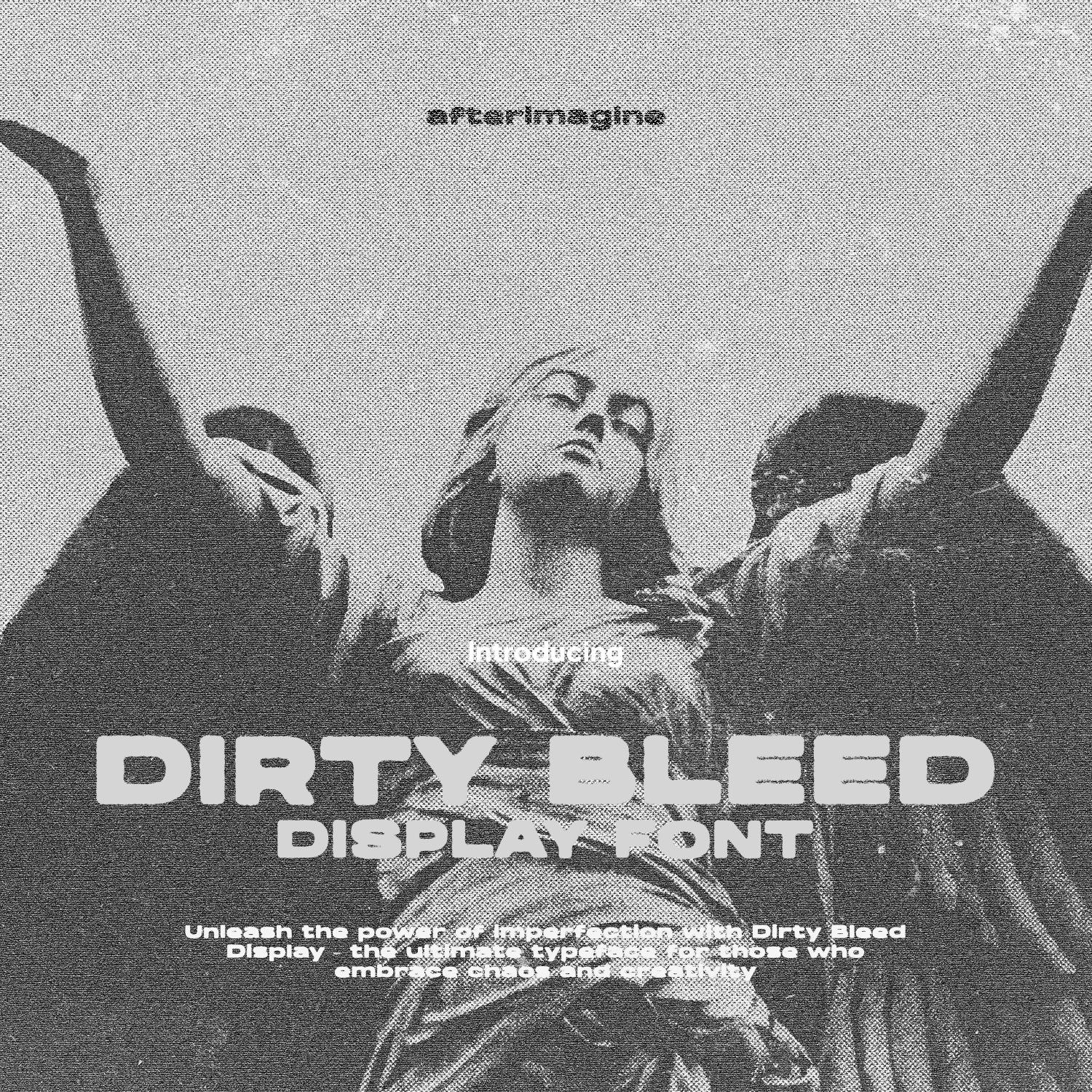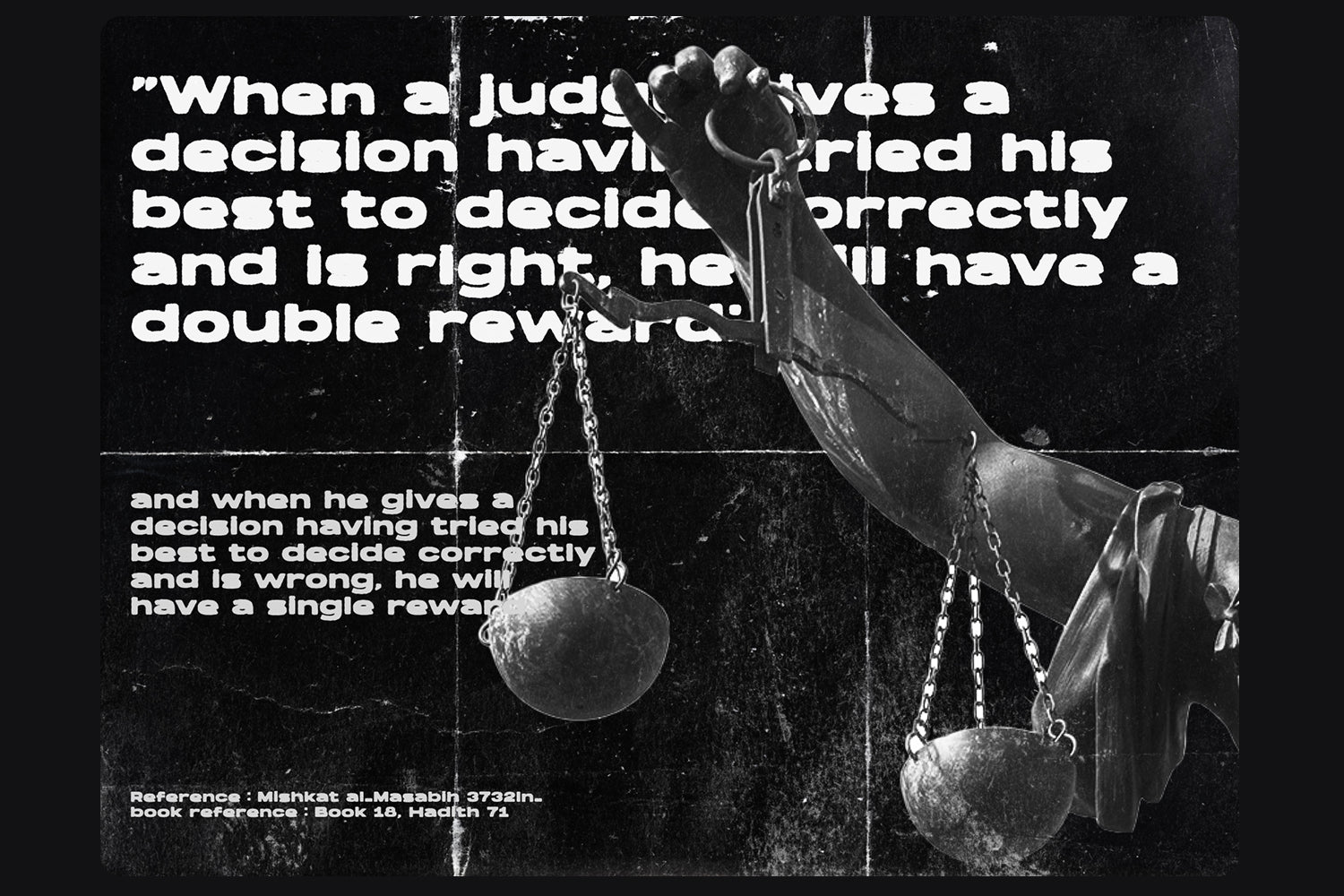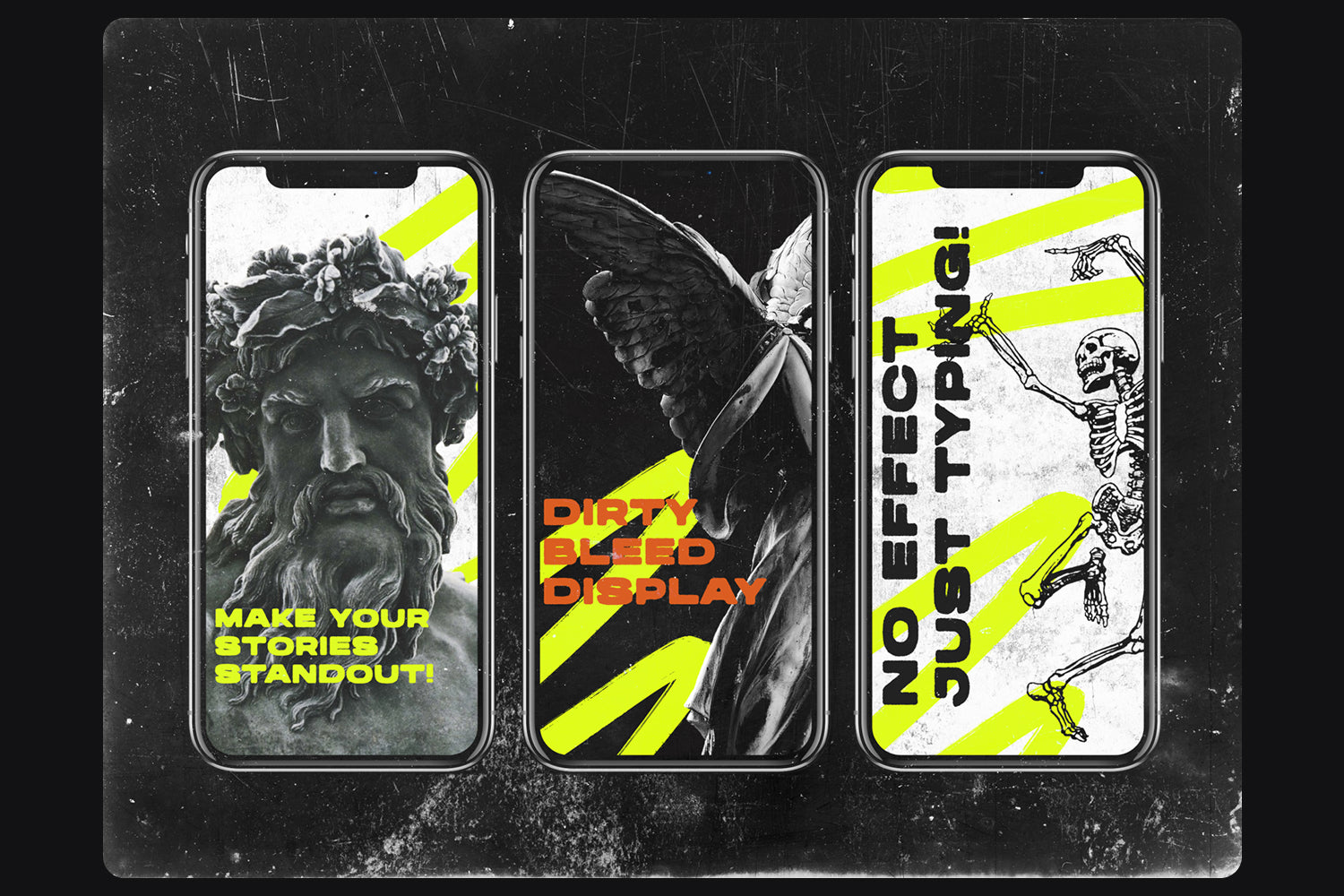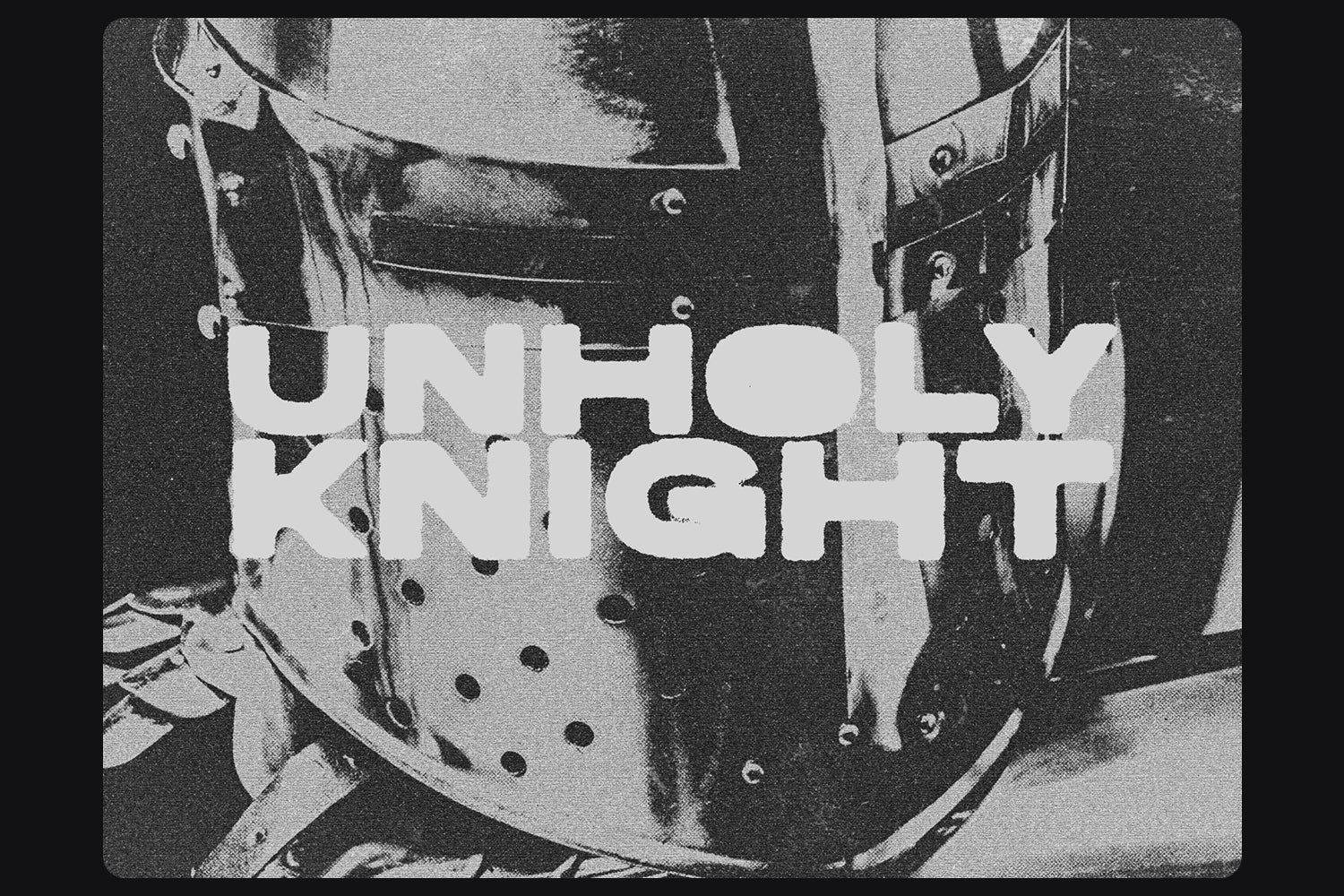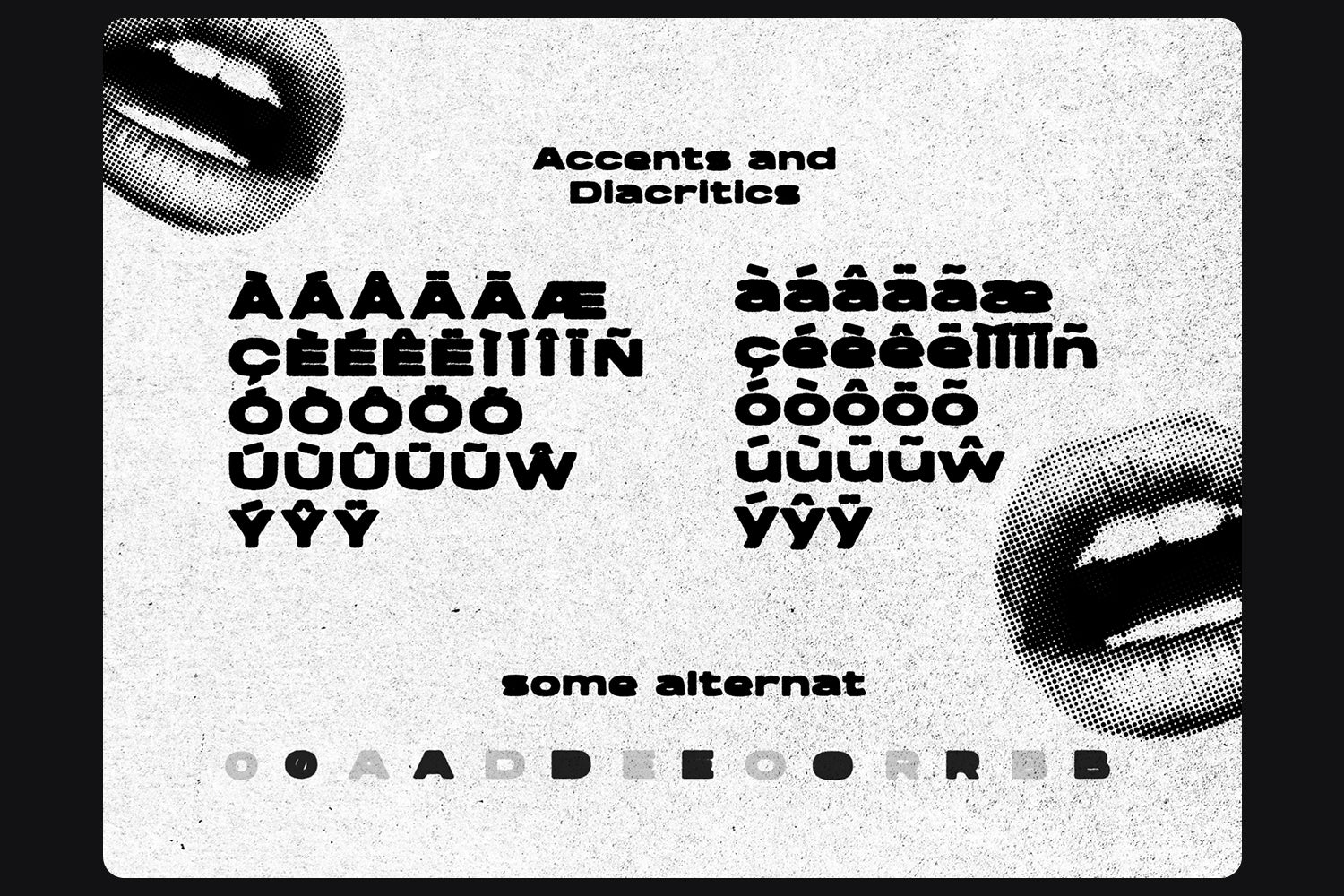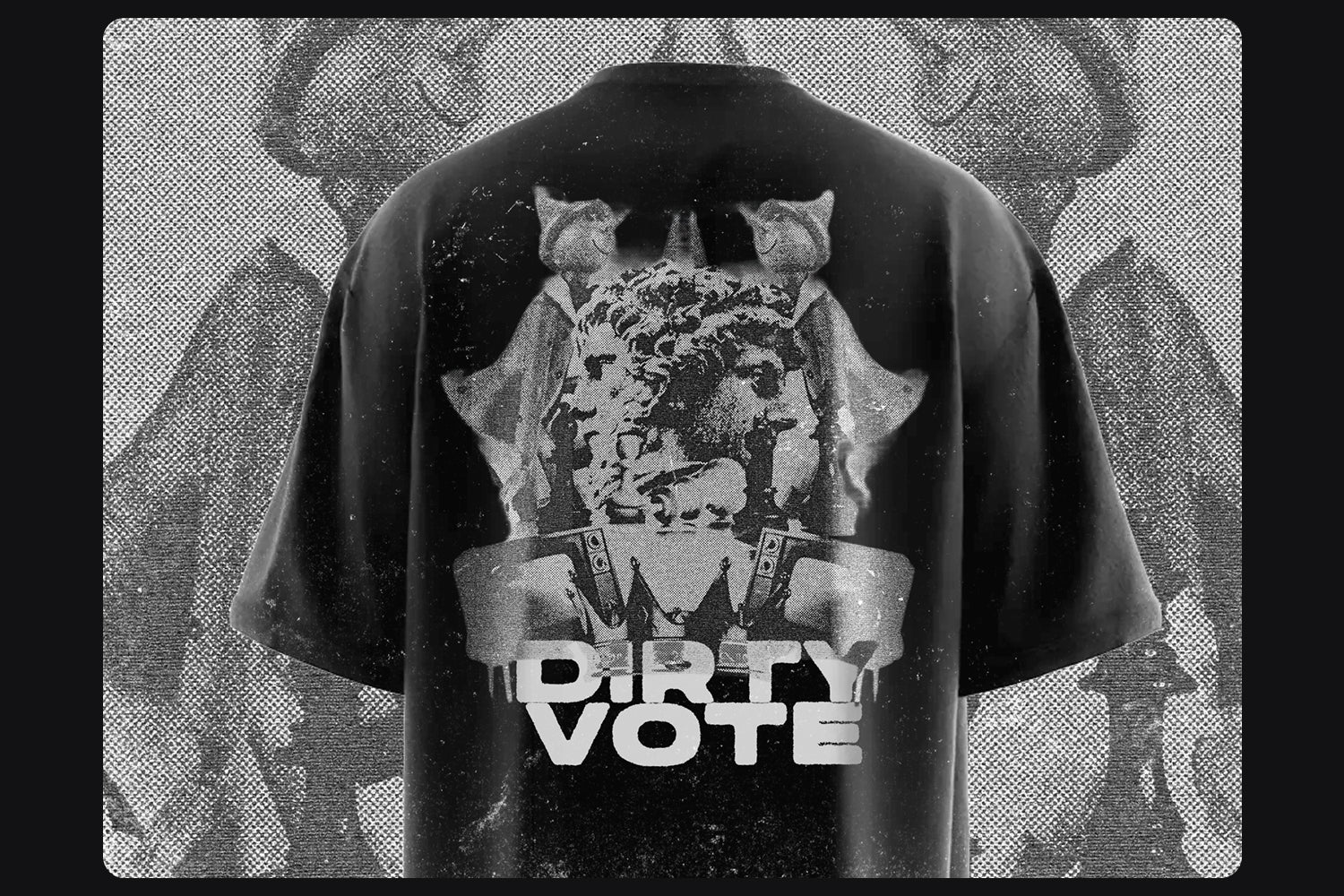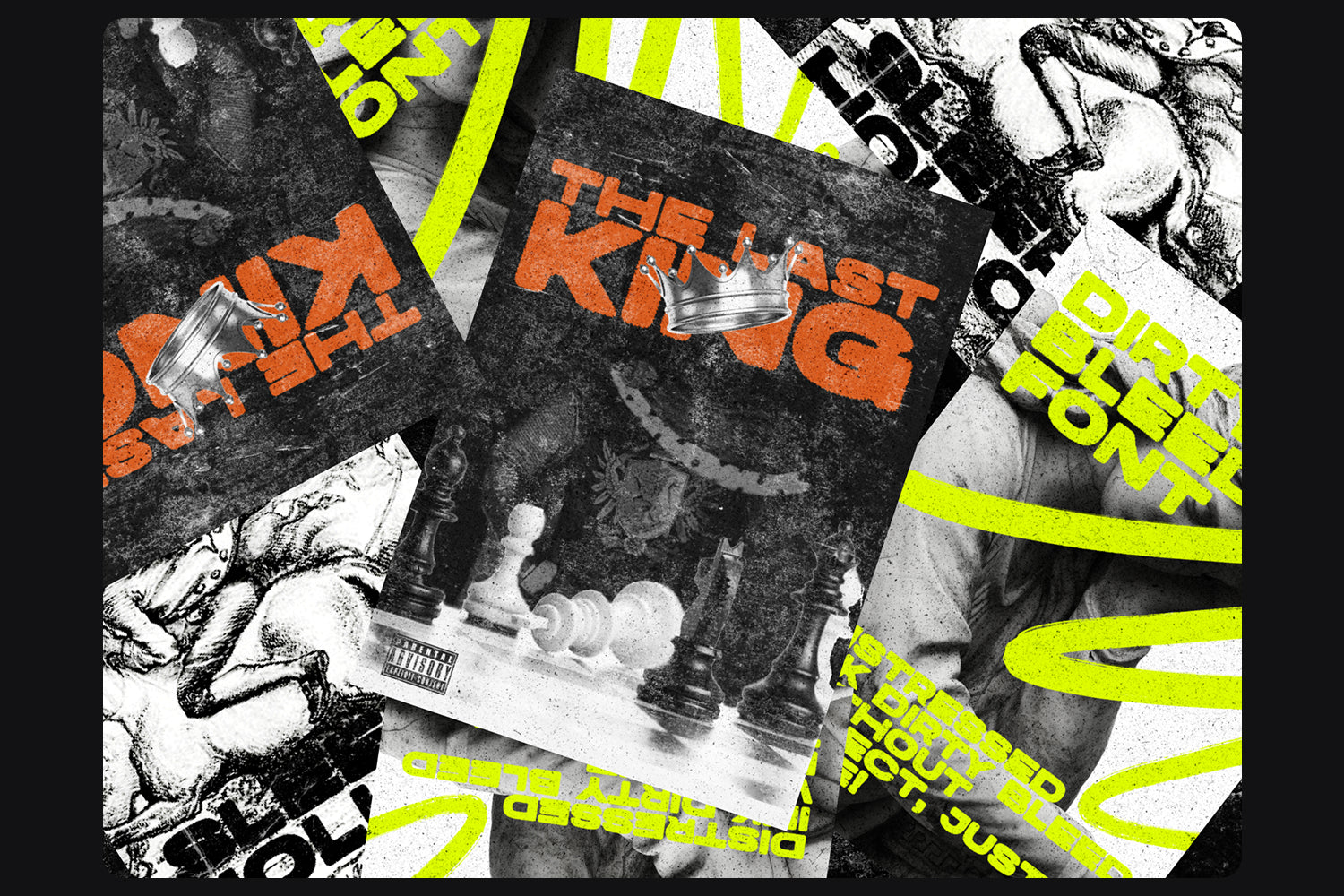
Dirty Bleed Display Font
Unleash the power of imperfection with Dirty Bleed Display – the ultimate typeface for those who embrace chaos and creativity. With its bold, grunge-inspired strokes and ink-splattered edges, this font is designed to make a statement. Whether you’re crafting rebellious posters, edgy branding, or gritty album covers, Dirty Bleed Display adds an intense, raw aesthetic that captures attention and fuels the imagination.
- Multilingual support;
- Uppercase & lowercase letters;
- Special characters & punctuation.